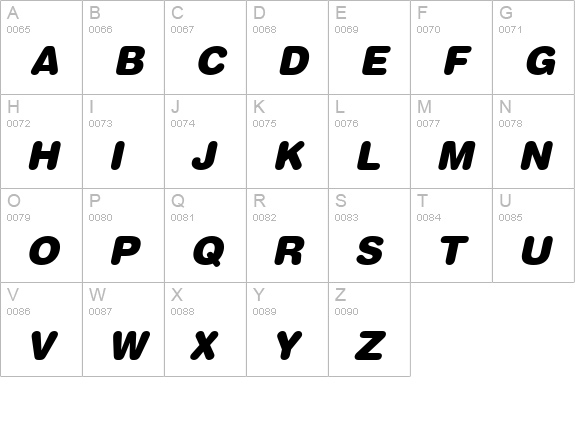
Context Rounded Black SSi Black Italic Font Details
Context Rounded Black SSi Black Italic is a maximum-weight, dramatic, italic variant in the Context typeface family \xE2\x80\x94 well suited to maximum-impact headlines, posters, and packaging.
The Context Rounded Black SSi Black Italic font exudes sophistication and modernity with its sleek rounded edges and bold italic style. Perfect for adding a touch of elegance to any design project, this typeface commands attention and conveys a sense of confidence. What sets this font apart is not only its striking appearance but also the fact that it is available for free download at FontsMarket.com. Whether you're looking to make a bold statement in your branding, create eye-catching headlines, or add a touch of flair to your graphic design projects, Context Rounded Black SSi Black Italic font is a versatile choice that will elevate your work to the next level. Download this stunning font today and unleash your creativity with this stylish and impactful typeface that is sure to make a lasting impression.